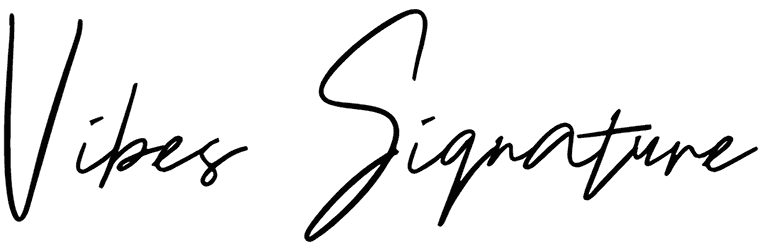
Marwah Signature Font
While it lacks numeric characters, Marwah Signature’s relaxed vibe and calligraphic undertones make it ideal for creative projects like calligraphy, posters, books, and social media posts. There’s a chance that handwritten fonts could keep your typography from getting boring and also make it look better. Just bear in mind it might be difficult to read. See how your audience reacts when you use this technique.
Designed by: Zeenesia Studio